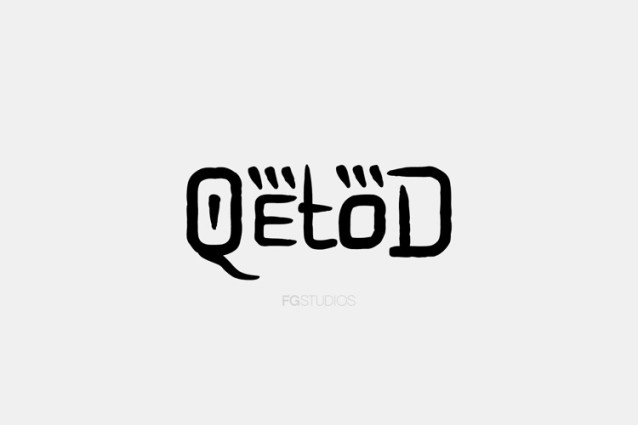
Qetod Font
Qetod Font is a versatile, well-crafted typeface designed to support a wide range of creative projects. This professional font family includes uppercase and lowercase letters, numbers, punctuation, and multilingual support for broader language use. It also comes with web font formats (.woff & .woff2), making it perfect for both digital and print design work. Built with usability and stylistic flexibility in mind, Qetod Pro brings clean, contemporary typography to headlines, branding, web interfaces, and more.